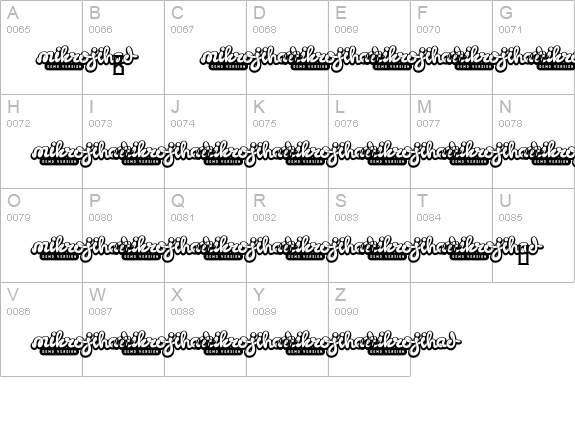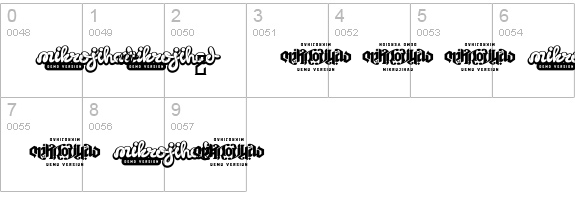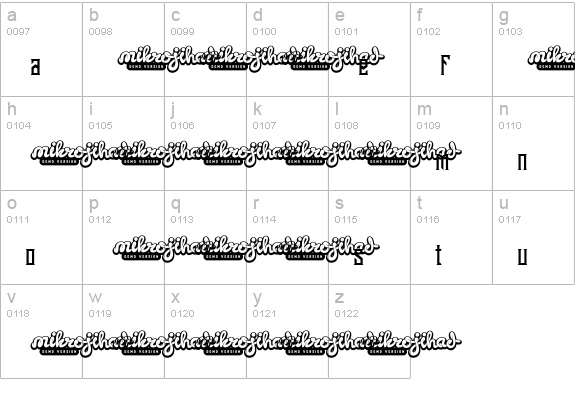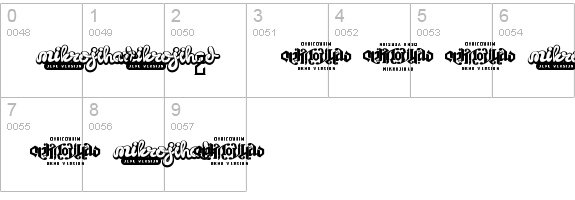
Banten Unfamous 2 DEMO Font Details
Introducing Banten Unfamous 2 DEMO font, a captivating typeface that effortlessly brings a touch of uniqueness and modernity to any design project. With its bold and stylish letterforms, this font is perfect for adding a contemporary edge to logos, posters, headlines, and more. Banten Unfamous 2 DEMO font is a versatile typeface that offers a wide range of possibilities. Its clean lines and strong presence make it ideal for both digital and print design applications. Whether you're working on a branding project, creating eye-catching social media graphics, or designing a sleek website, this font is sure to make a lasting impression. What sets Banten Unfamous 2 DEMO font apart is not only its striking aesthetics but also its accessibility. This font is available for free, allowing designers of all levels to utilize its charm without any limitations. Simply head over to FontsMarket.com and download this font effortlessly, unlocking a world of creative possibilities. Whether you're a seasoned professional or an aspiring designer, Banten Unfamous 2 DEMO font is a must-have in your typography collection. Its versatility, modernity, and accessibility make it a go-to choice for various design projects. So why wait? Download Banten Unfamous 2 DEMO font today and let your creativity soar to new heights.